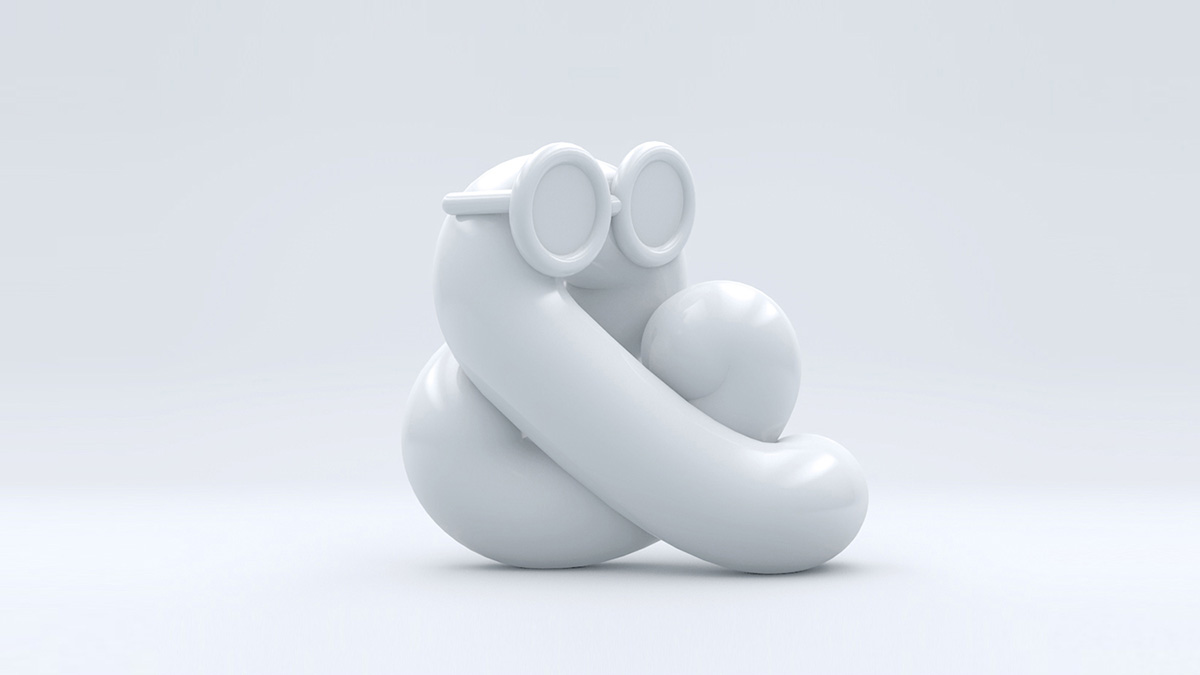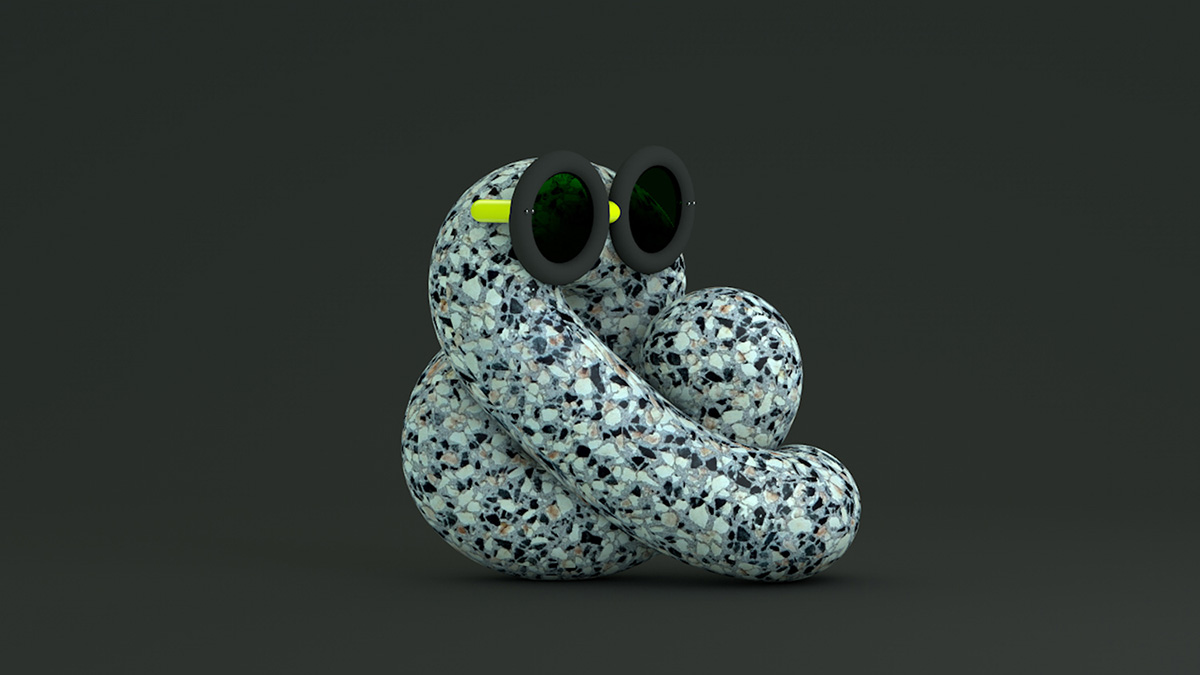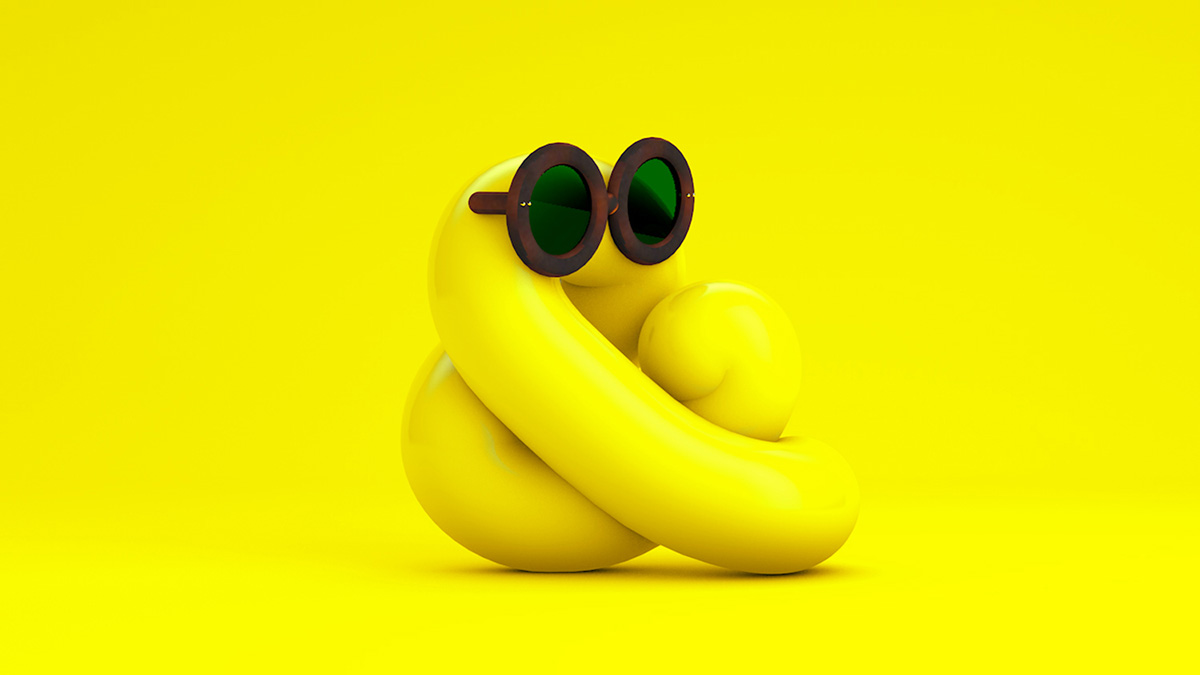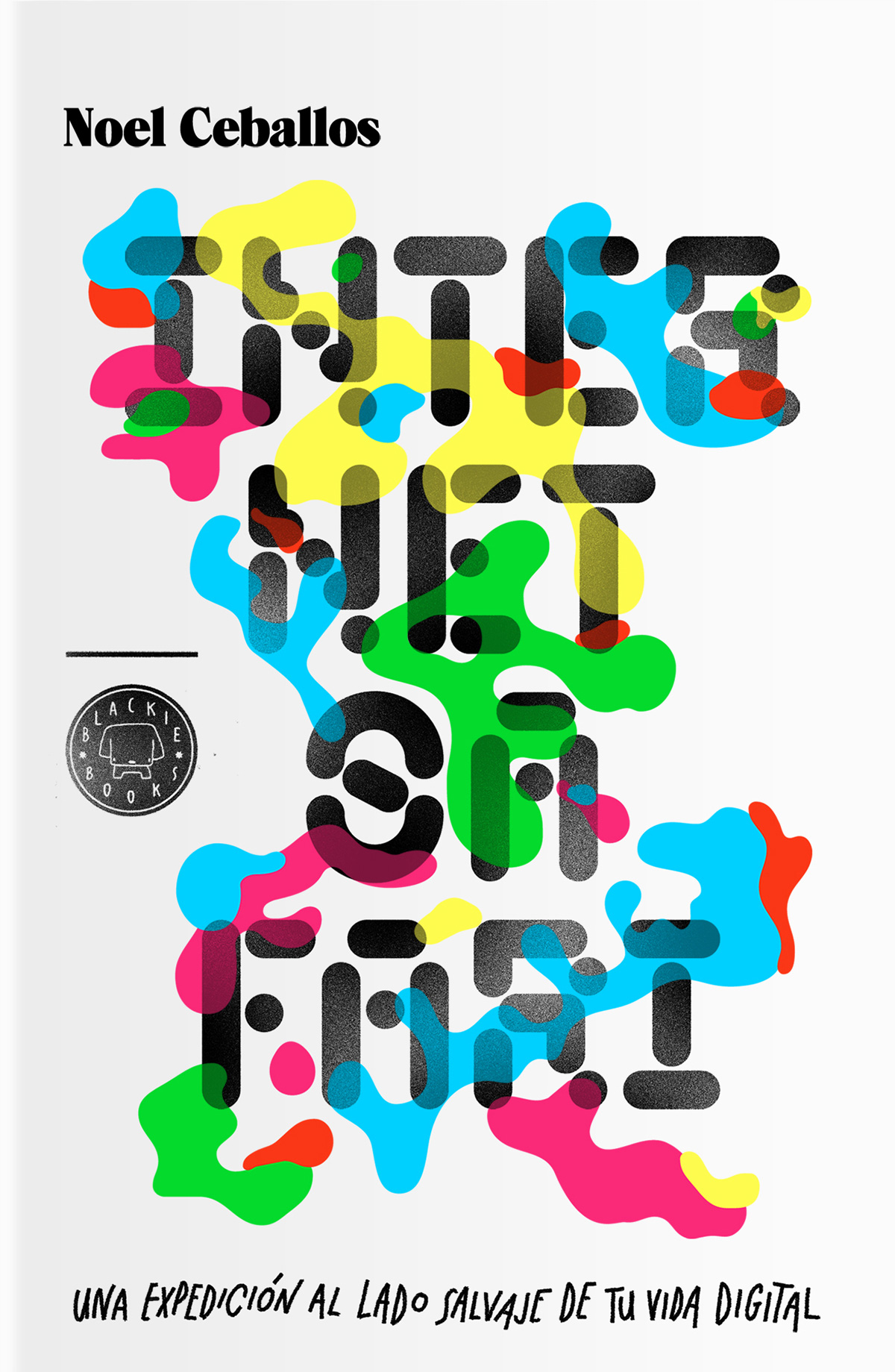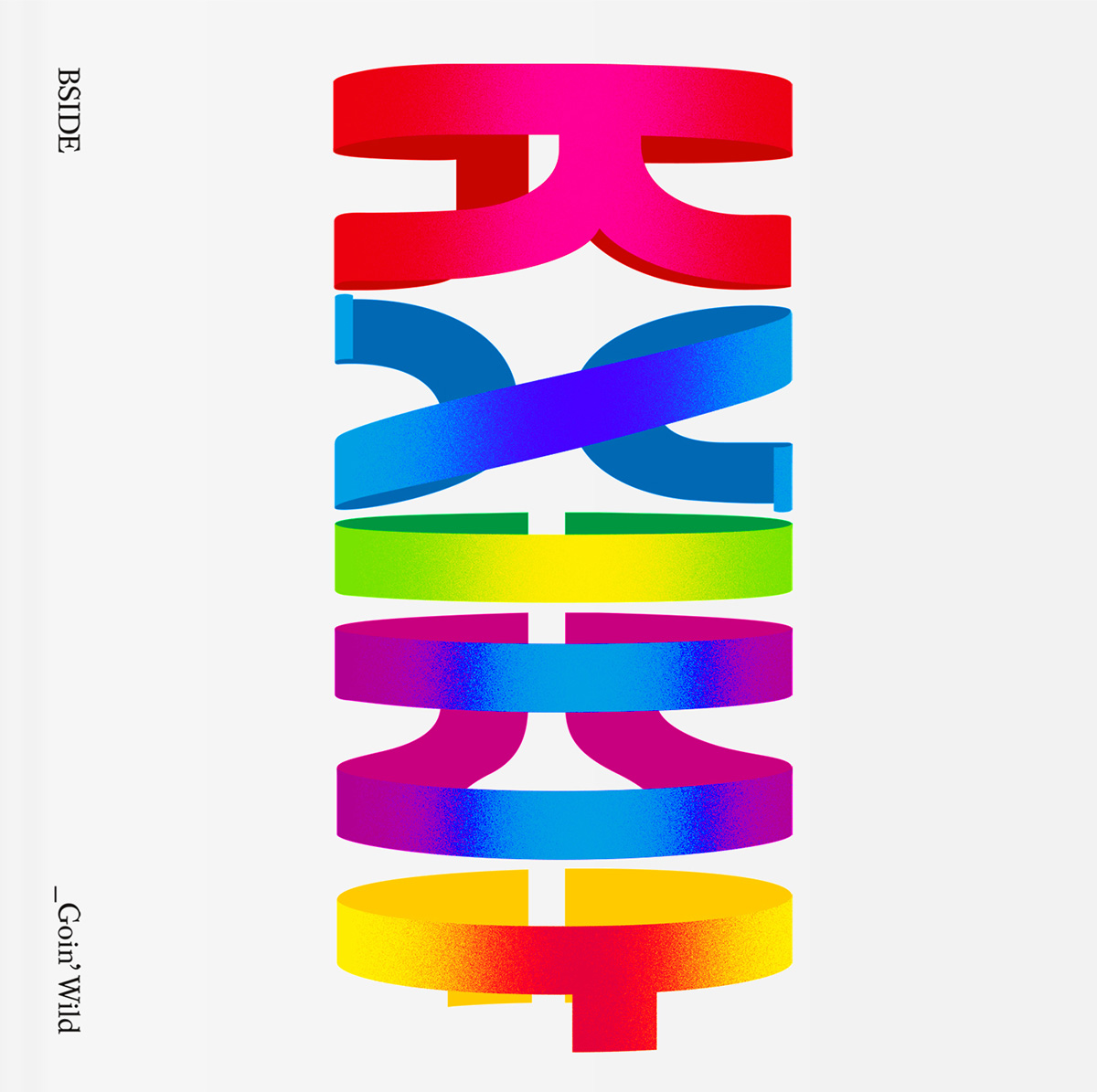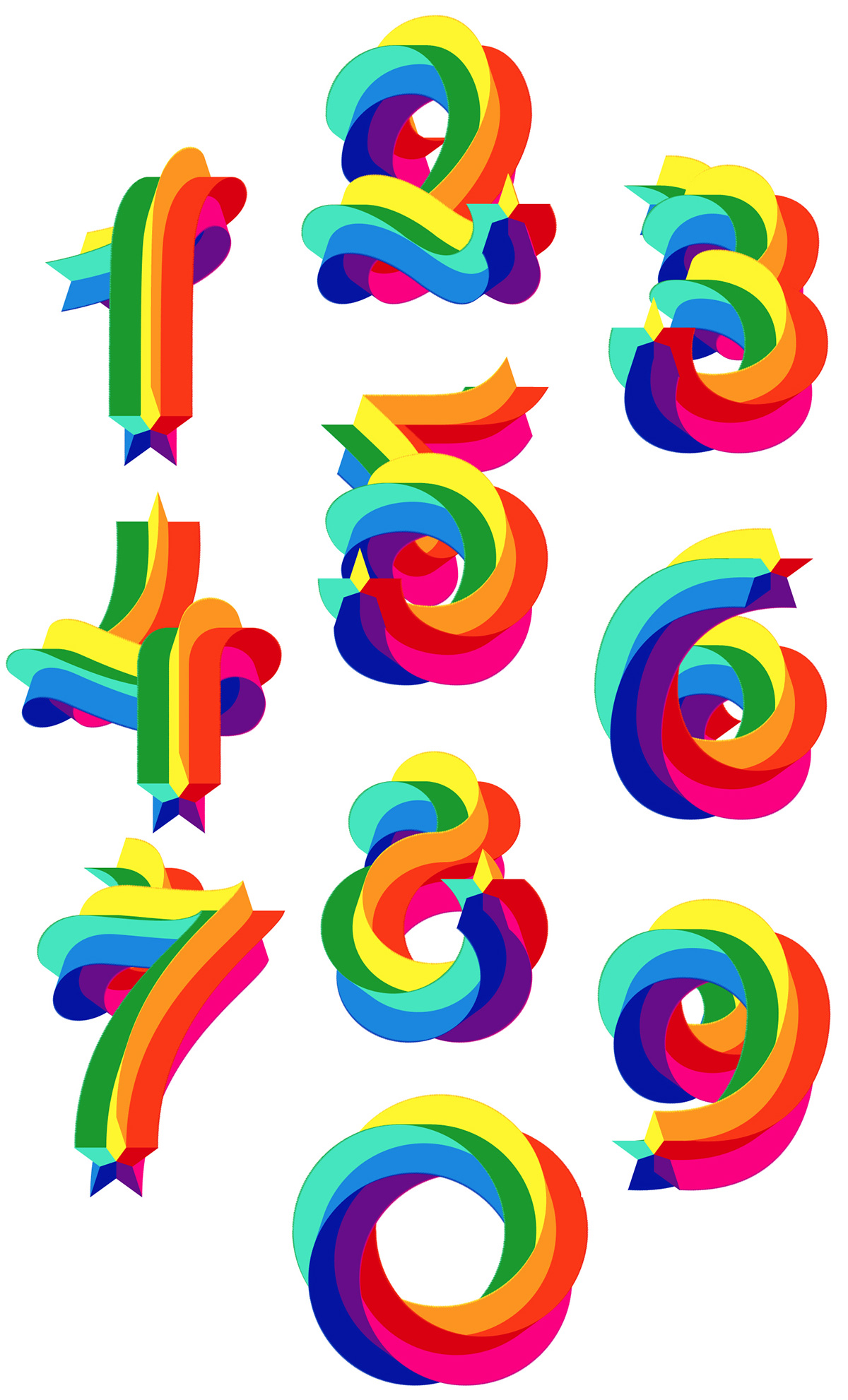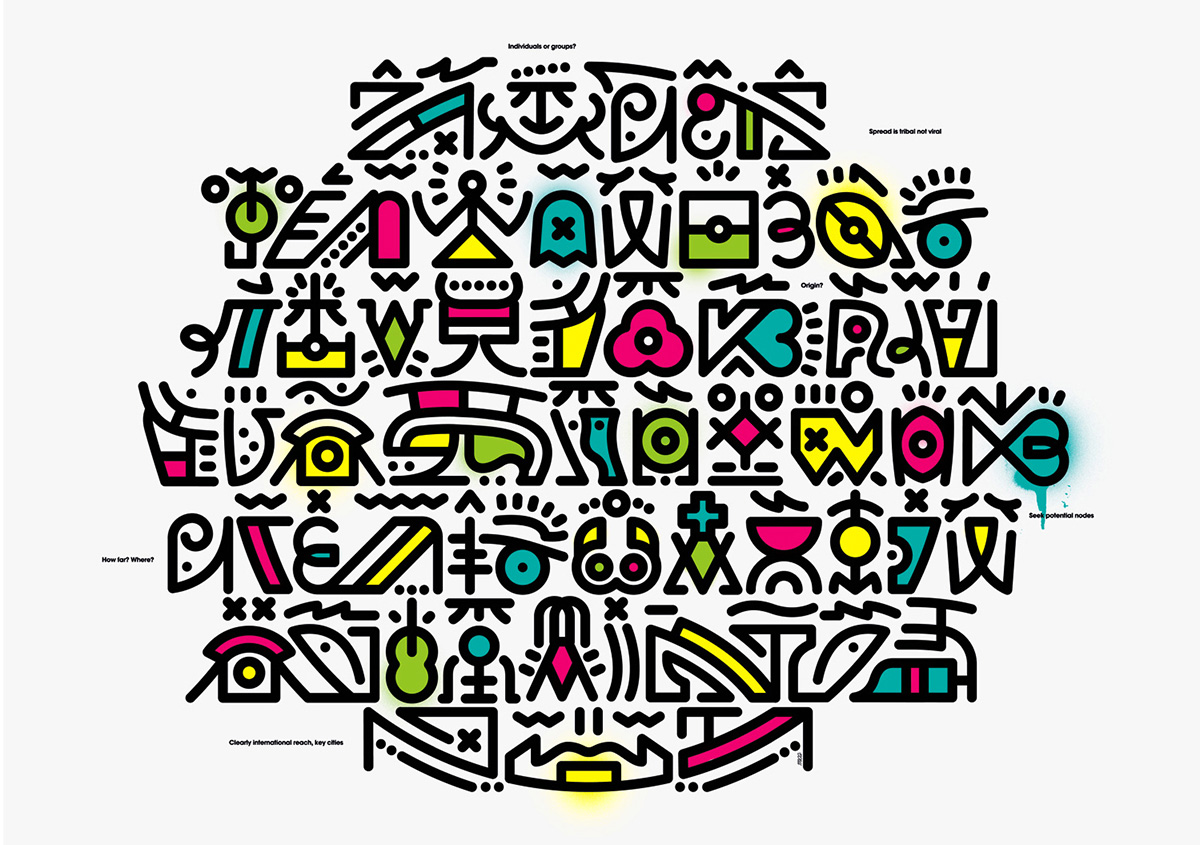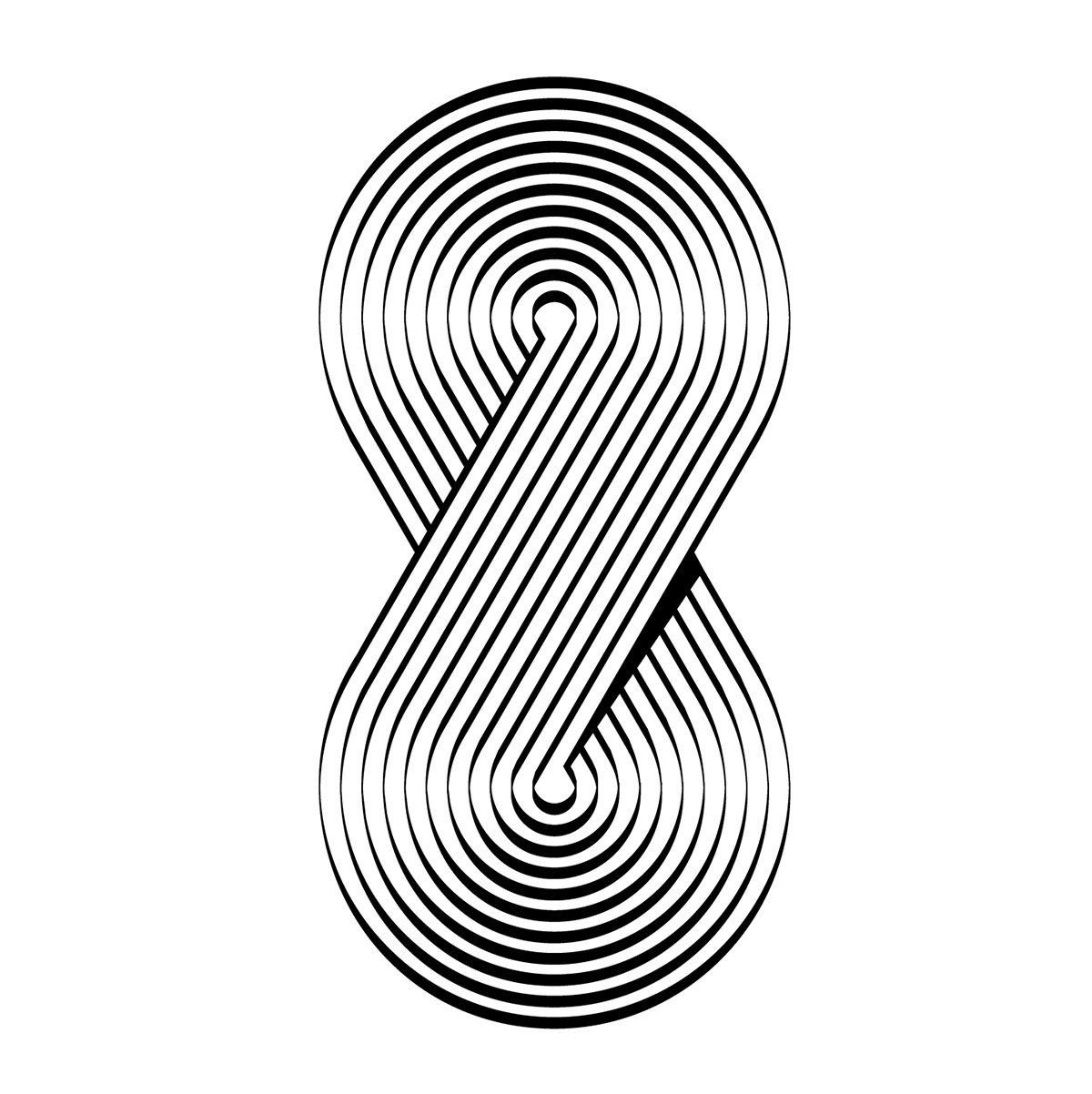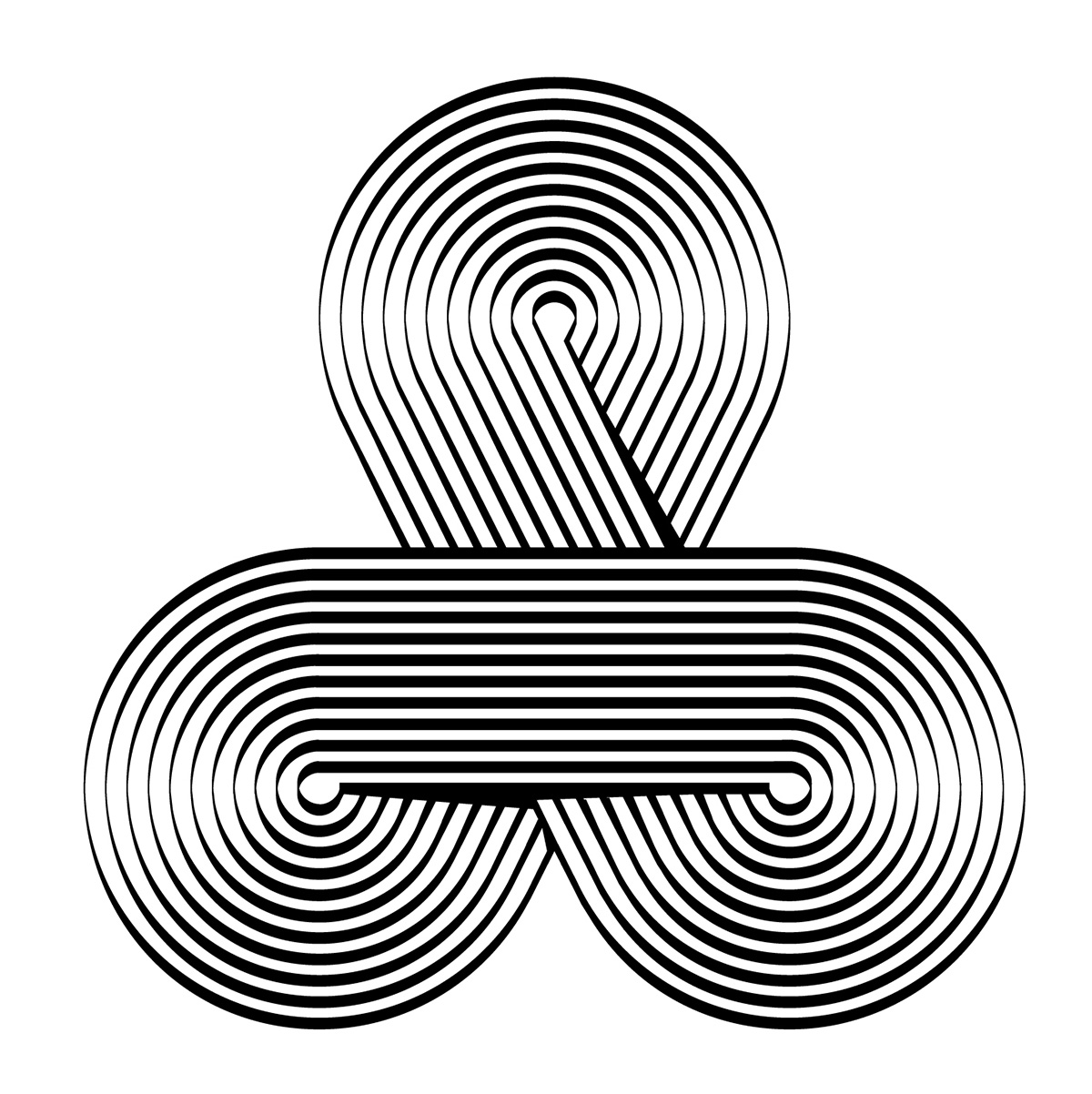
Marta Cerdà Alimbau’s knows how to bring colorful letterforms to life
Ever since she won the ADC Young Guns award back in 2008, Typographer extraordinaire Marta Cerdà Alimbau brought her vivid interpretation of letterforms to many projects and many cities. Her resume, decent if not impressive, proves that this woman values the richness of our world and brings it to life for numerous clients - Marta has worked for Coca-Cola, the Penguin publishing house and Ray-Ban to name a few. Based in Amsterdam for the time being this nomad of creativity is on a self-discovery path full of 3 dimensional letterforms that allow her visions to extend past their natural 2D state. Her love of both synthesis and ornamentation is evident as you explore her portfolio that is vivid like she is. Here we talk with her on what makes her the artist she is.
From Barcelona to Los Angeles. Which characteristic of these two cities are evident in your line of work?
LA is so sunny, so luminous, that allows you to see color at its brightest. I think that’s the most evident influence of LA, it let me see things with a brighter color palette on my day a day and I introduced that to my work. It is also a tough city, it definitely made me stronger.
About Barcelona, it is a deeper matter, since I was born and spent most of my life there. I think it has to do with the culture in there. My love for both synthesis and ornamentation it is a common threat of the catalan crafts, even with people’s character which is, at times, very contradictory: exuberant yet cerebral.
The fact that I just recently moved to Amsterdam, might add more influences soon again.
Can design manipulate our senses and reality? If so in which ways?
We are so under the spell that it is even difficult to realize how much influence Graphic Design has in our lives. From the moment we wake up to the moment we go to bed, from the moment we’re born to the moment we die, we’re surrounded by bold and if we’re lucky, beautiful messages telling us what’s the “normal” mediocre average for everything, also for design. We are the voice of those messages and are, in a way, responsible for that. Graphic Design shape the way we perceive our reality, it is culture itself, even if it’s trash culture. For a lot of us, there’s also the urge to do something beyond expected and accepted, and we must fight for that.
Hand written versus digital. Pros and cons?
Digital is more predictable, it doesn’t have the warmth a hand has, and doesn’t admit error if you don’t deliberately introduce it. But it can give you much more control and may allow you to be faster. Now we have more and more hybrid tools in the market. I, for example, am using a wacom, and sometimes it feels like you’re using a pen on a paper. Though, even with the best of the digital tools, you can still skip error, and I think this is the main difference between them. The creation flow is much different when you don’t have to deal with the unexpected element in it.
If you were a font which one would you be and why?
I am expressive and passionate, my face never feels neutral at all. Even though I feel very latin in this way, I am still very meticulous, self disciplined and cerebral. I’m afraid this description matches very well with Mistral.
You blend illustration with typography in extensive ways. Are there any boundaries between those two?
We’re surrounded by a visual culture where a letter is not only a legible entity but also a suggestive image. When I work with typography, I am usually asked to add a certain expression to legibility. And, in my case, I think the expression element has to do more with illustration and legibility with typography itself.
Which is the most valuable advice you were ever being given?
When I worked at Vasava, Toni Sellés used to say something like The rush is gonna fade but the bad work is gonna stay. Overtighted timings are another issue we all have to deal with, I had to learn when to say no.
Freelancing or working for a company. Which one do you consider the best option in today’s state of the creative market?
The creative market is now tougher than a few years ago. So, if you’re really willing to freelance, it depends a bit on your own economical situation. I recently read Culture crash: The killing of the creative class, I’m afraid it is the best analysis I’ve ever read of today’s situation.